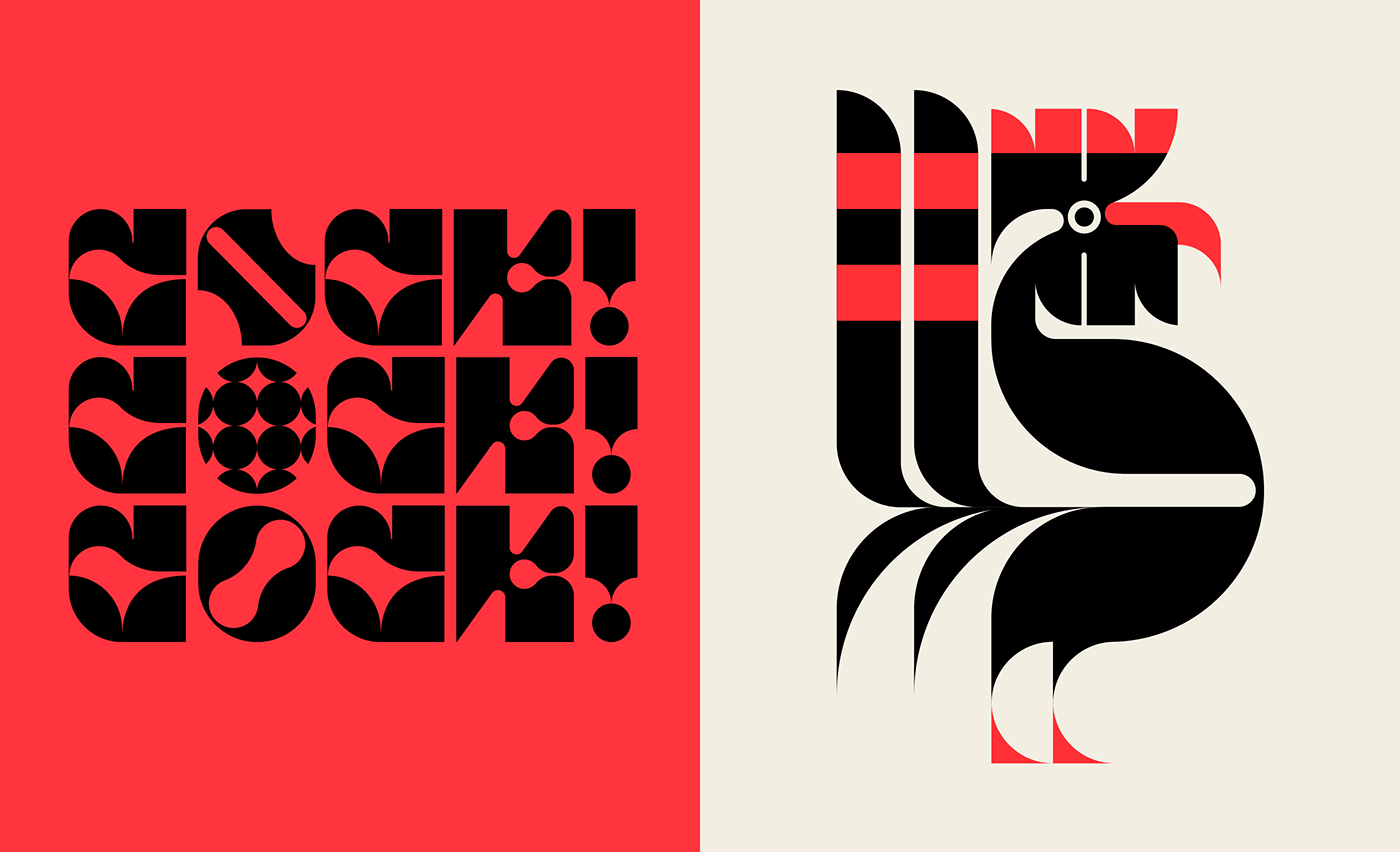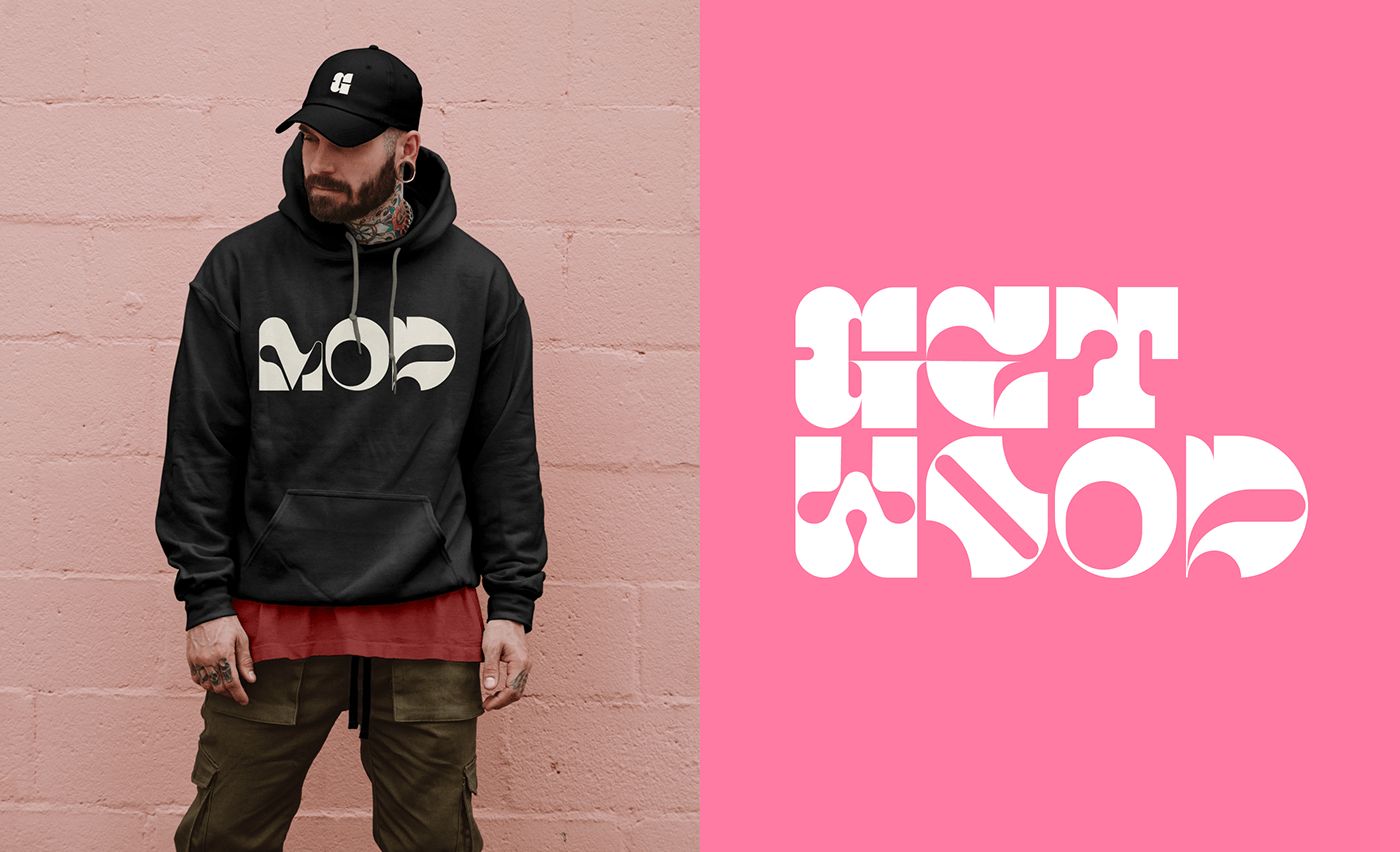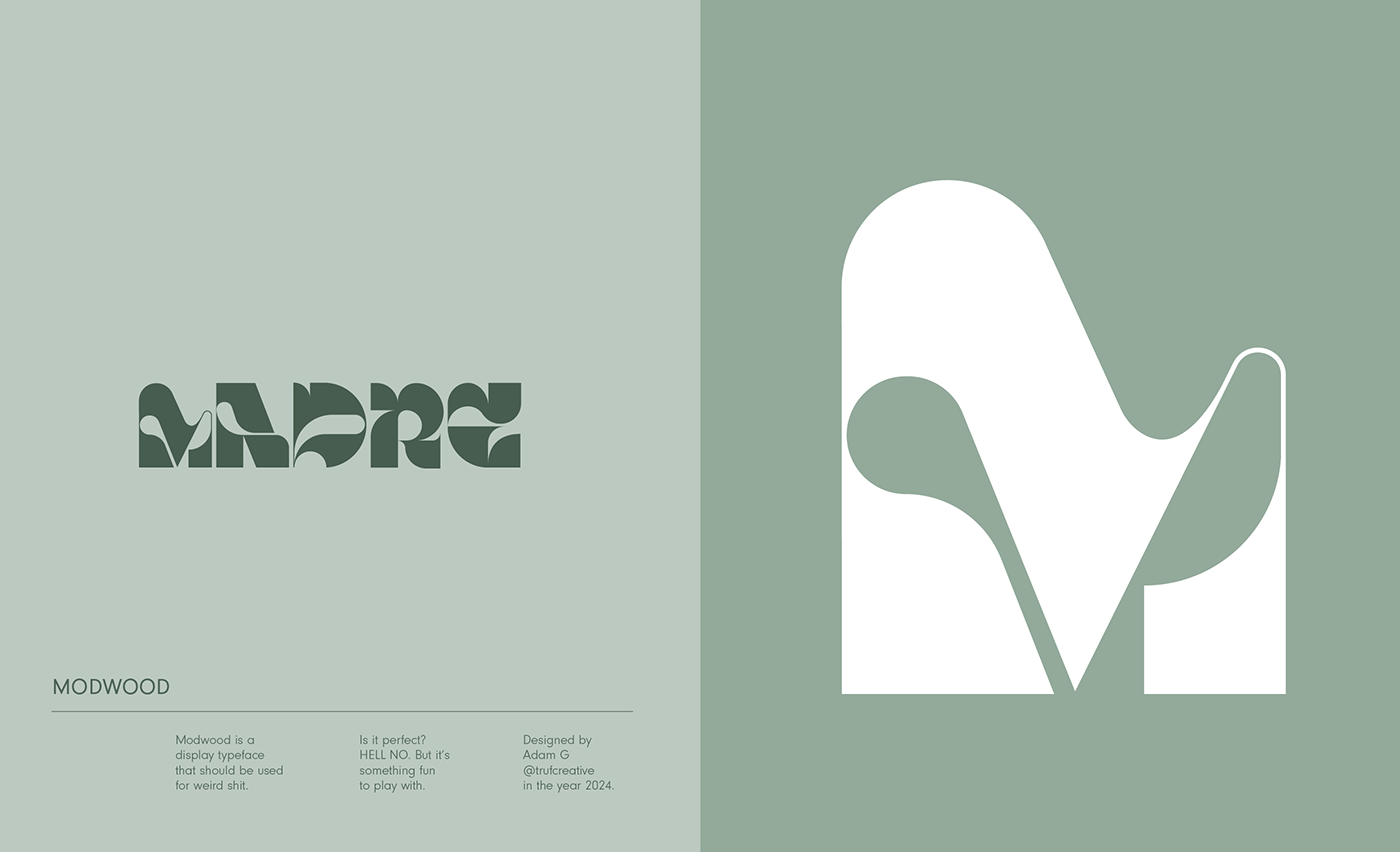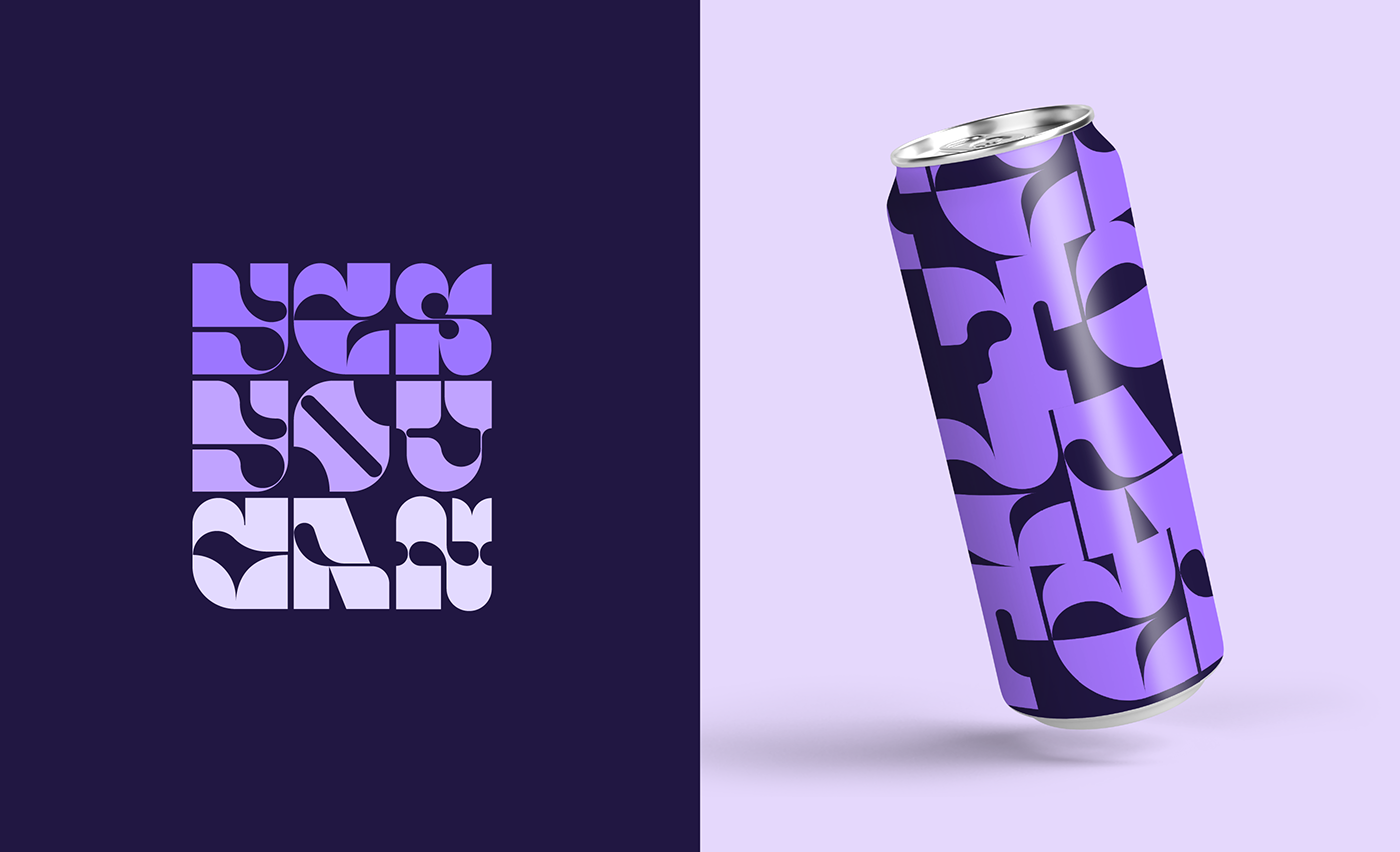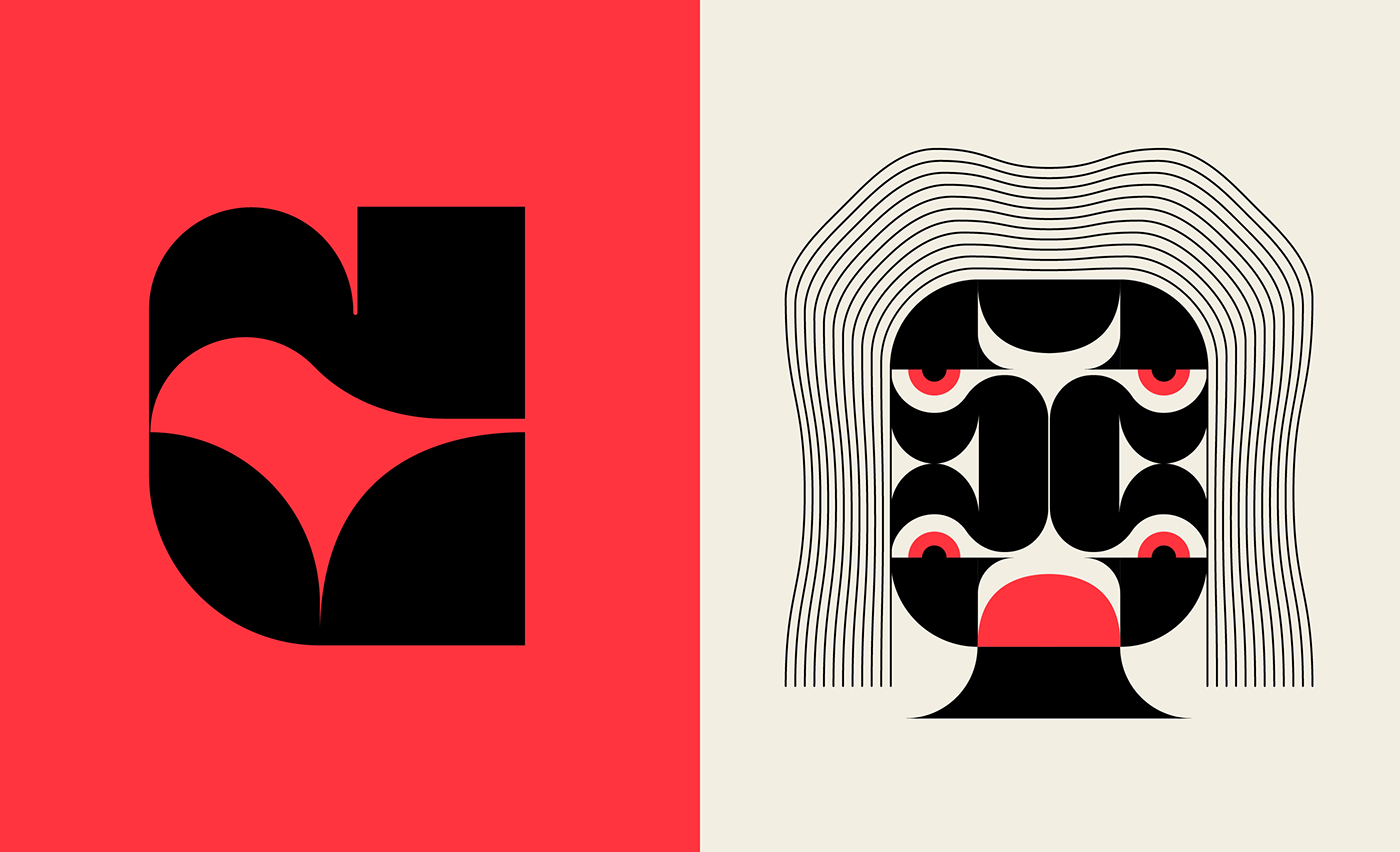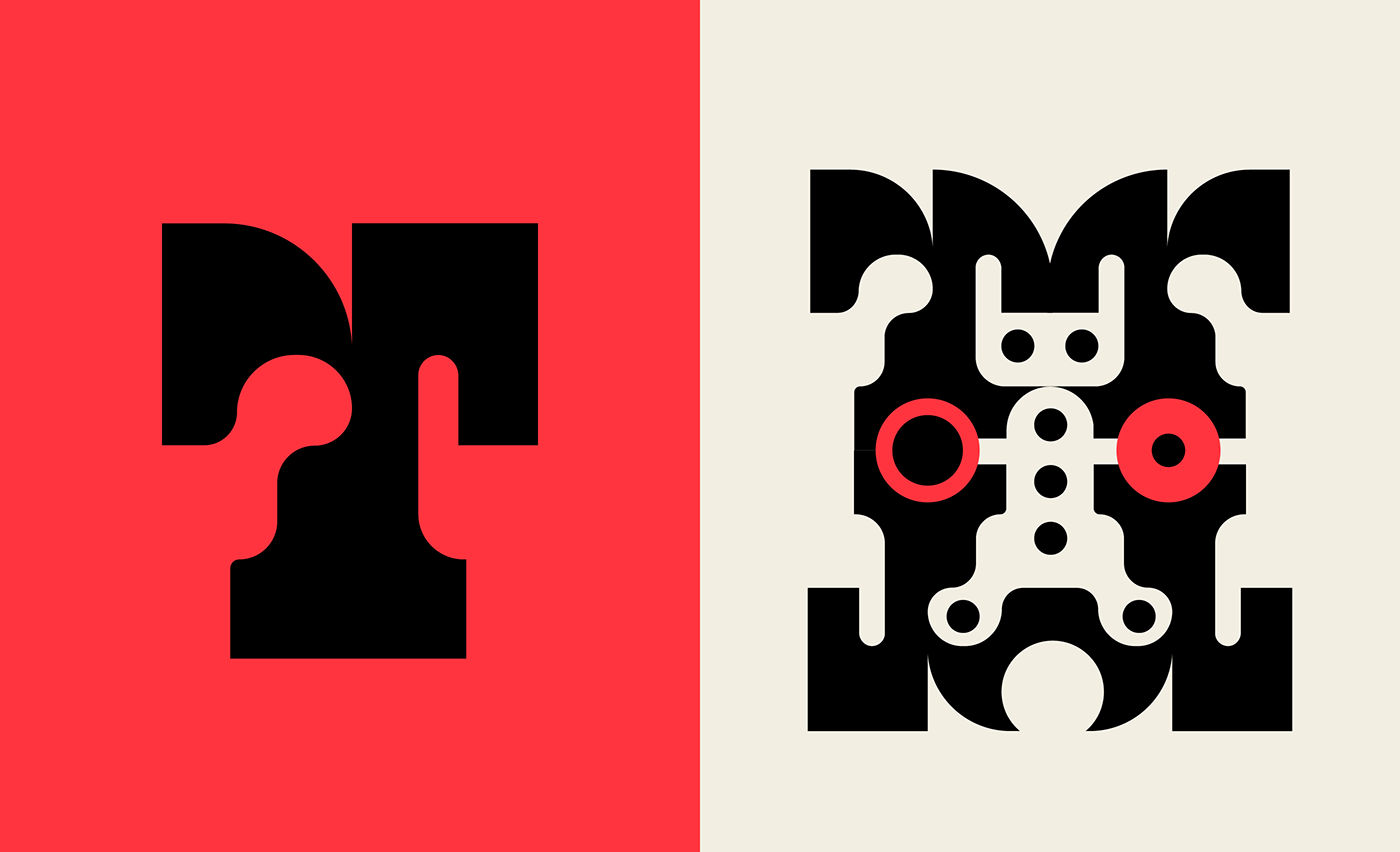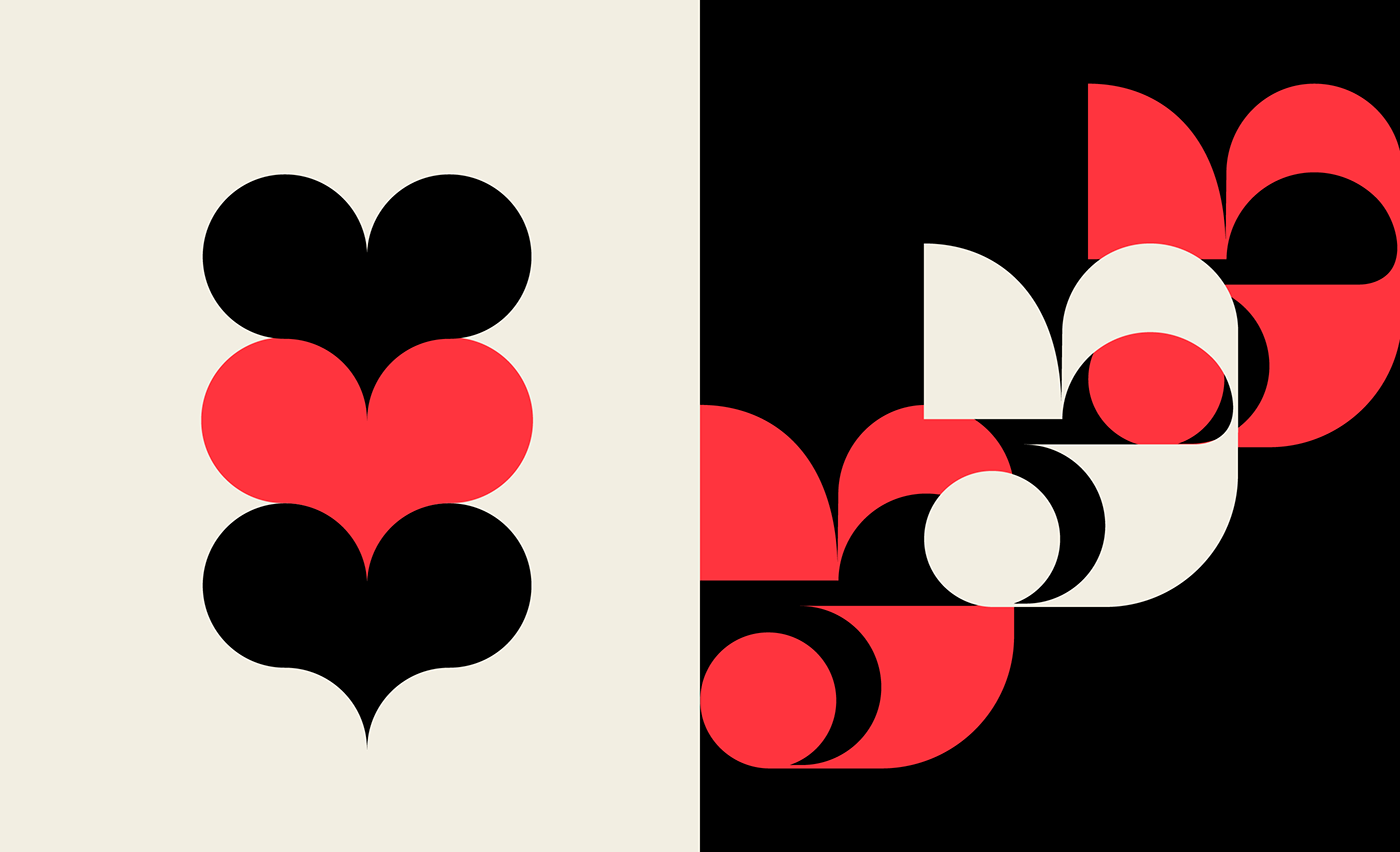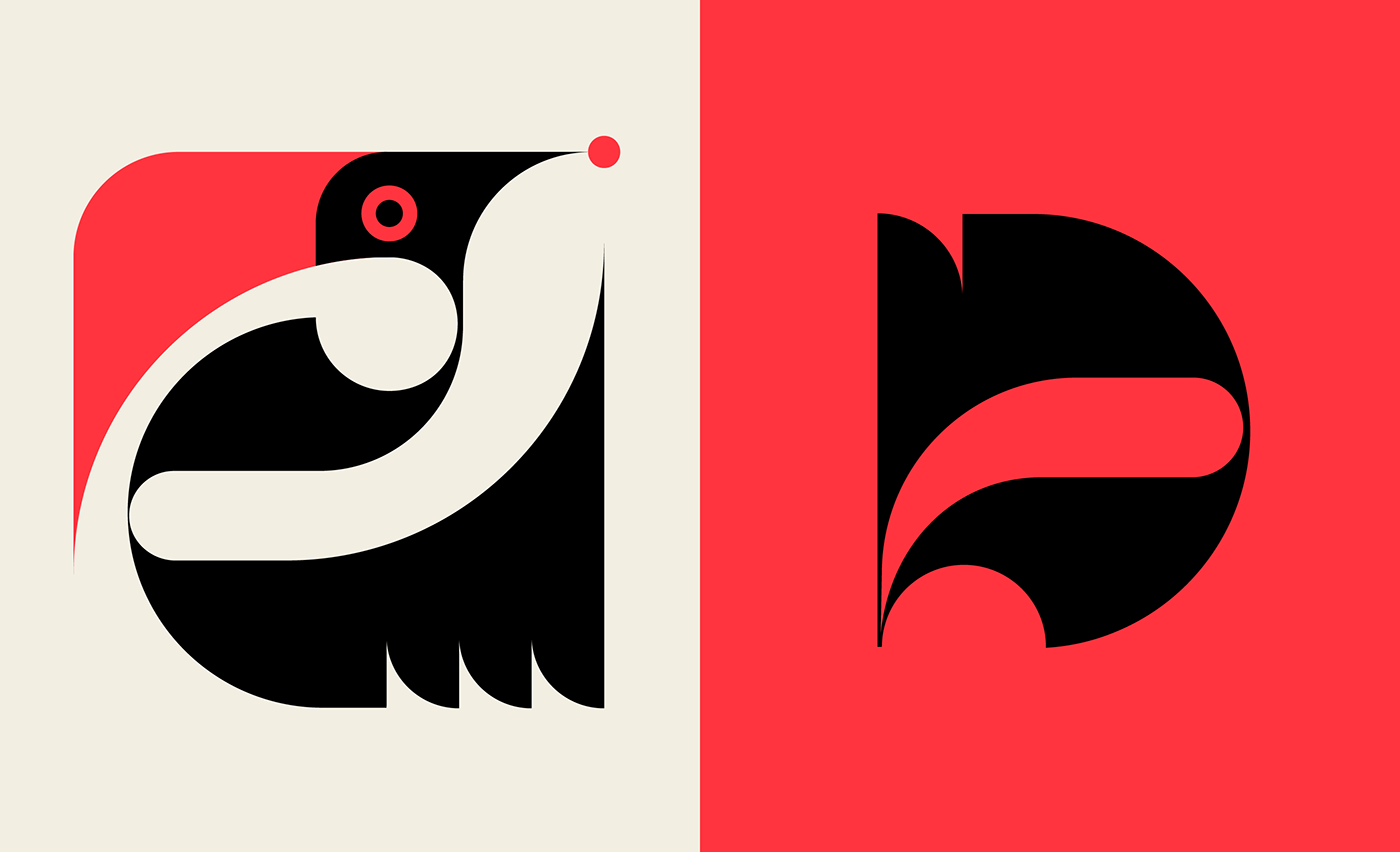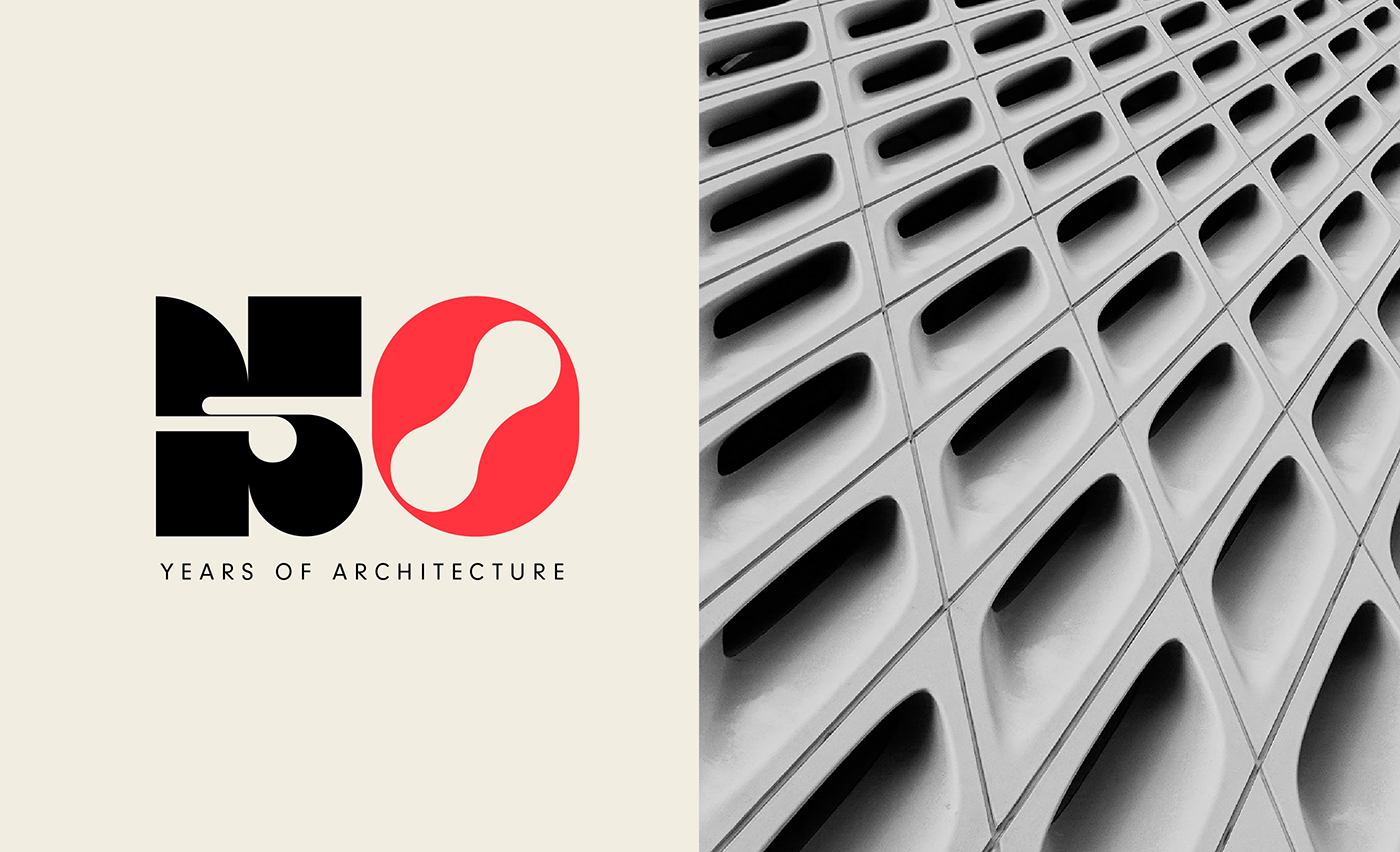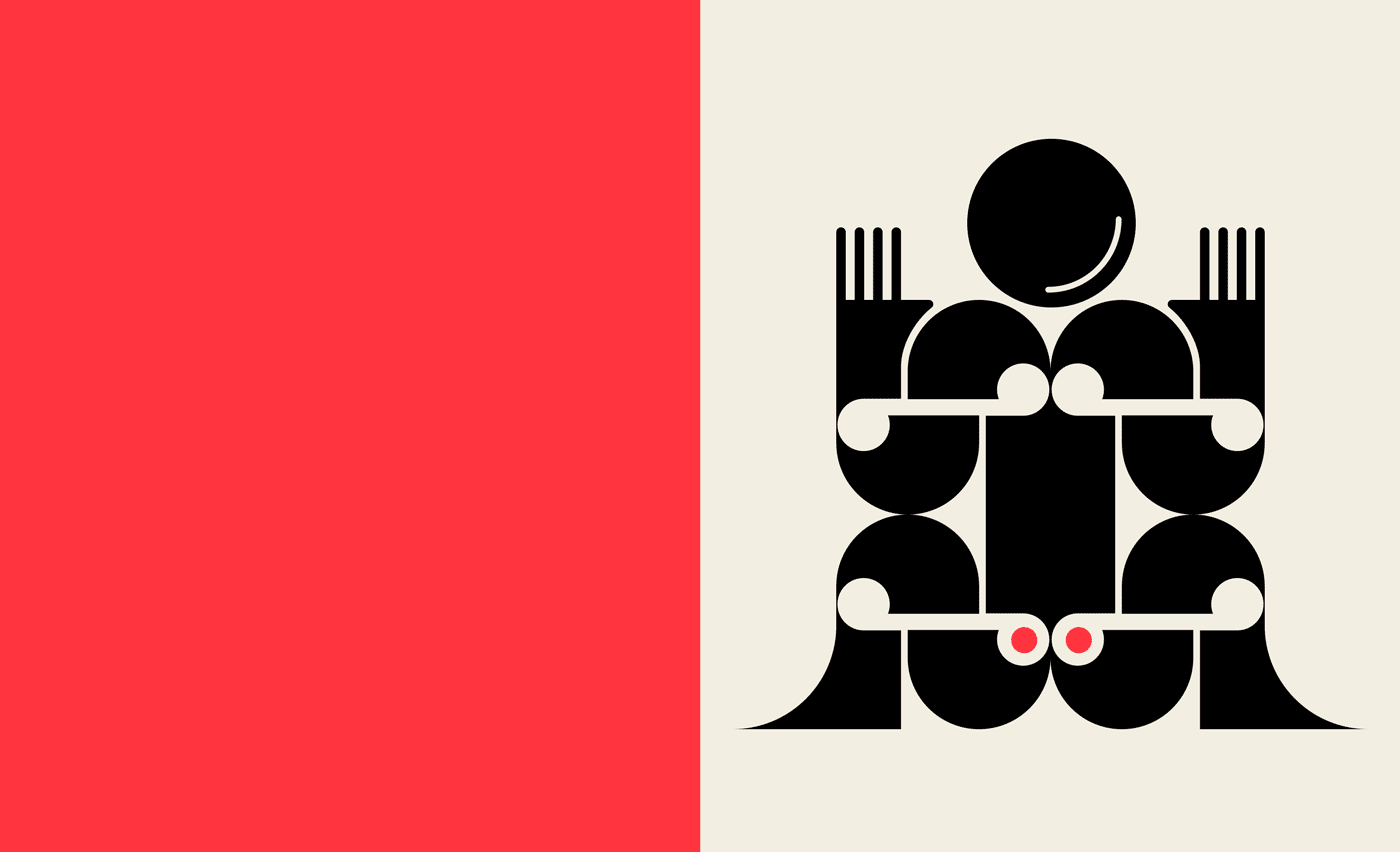
Modwood Display Font: A Fusion of Typography Design
Discover Modwood Display Font by TRÜF, a versatile blend of modern and organic typography design, perfect for diverse graphic projects.
In the ever-evolving world of graphic design, the Modwood Display Font emerges as a fascinating subject. Crafted by TRÜF, a creative studio known for its innovative approach to design, Modwood is not just a font—it's a journey through various design philosophies and aesthetics. This unique display font, available exclusively in .otf format, embodies a blend of modernity with the timeless appeal of wood textures, geometric shapes, and an organic feel.
At its core, Modwood is a celebration of diversity. Its design transcends conventional categorization, embodying elements that are simultaneously playful and serious, rebellious yet tribal, and artsy without losing an iota of fun. Such versatility is rare in typography, making Modwood a noteworthy subject for enthusiasts and professionals alike.
Design aficionados will find Modwood’s flexibility intriguing. Whether employed in digital art, print media, or branding projects, it adapts, bringing a distinctive flair that can shift from tribal to geometric without losing coherence. This adaptability makes it a valuable tool for designers seeking to push the envelope and create works that stand out in a crowded market.
By delving into the essence of Modwood, we uncover more than just a font—we discover a narrative tool capable of transforming the simplest message into a compelling visual story, a testament to the endless possibilities within the realm of graphic design.